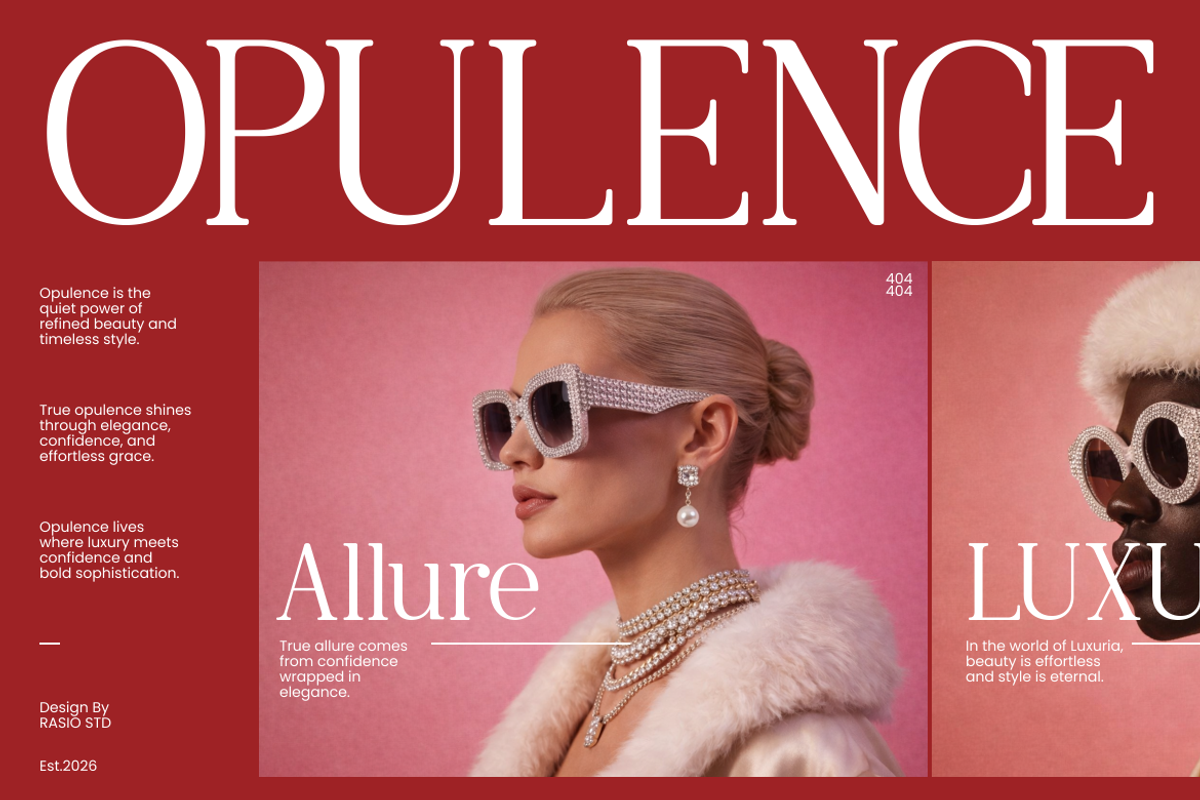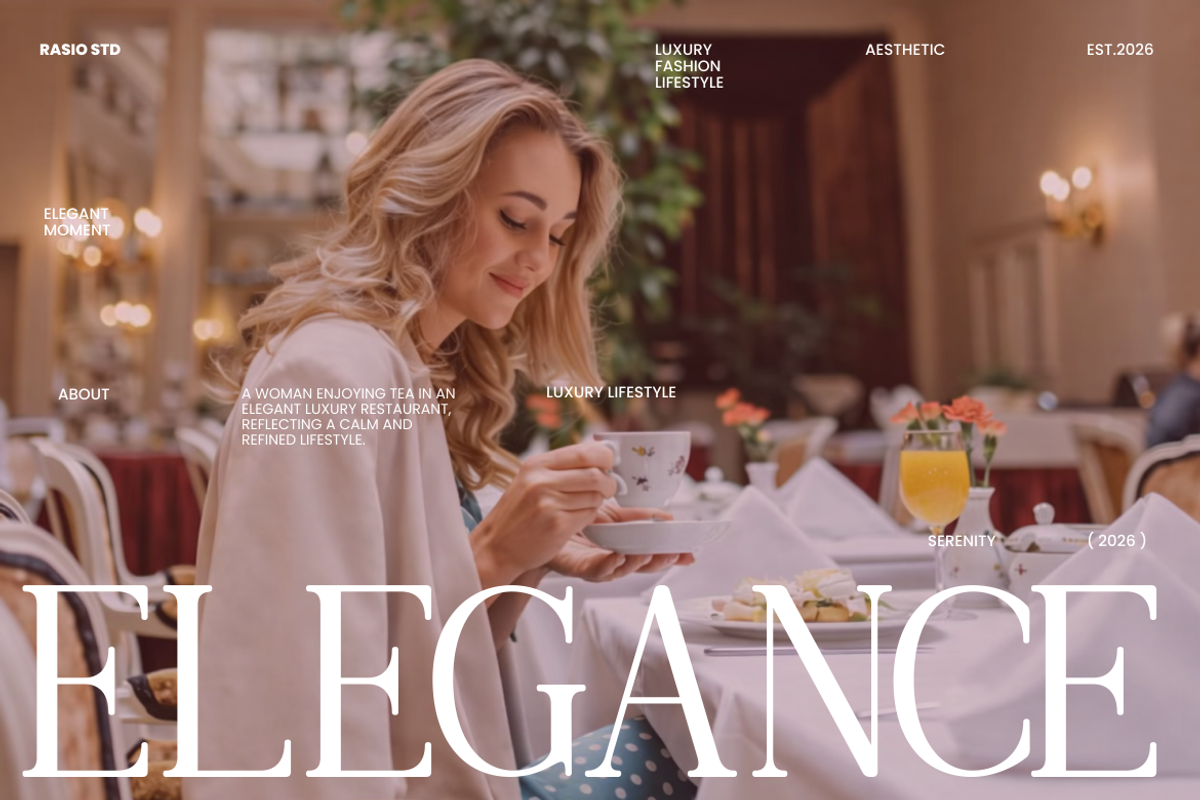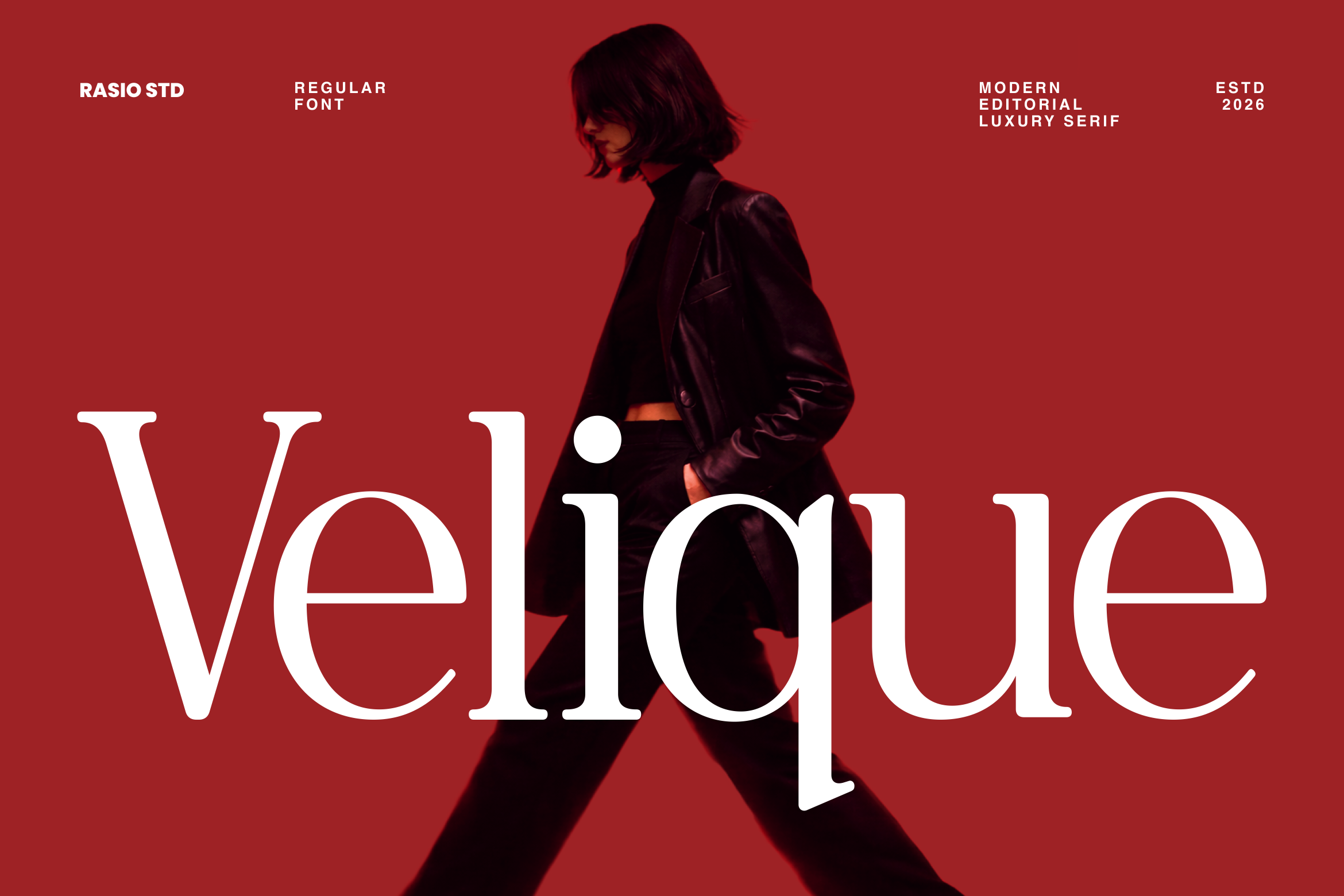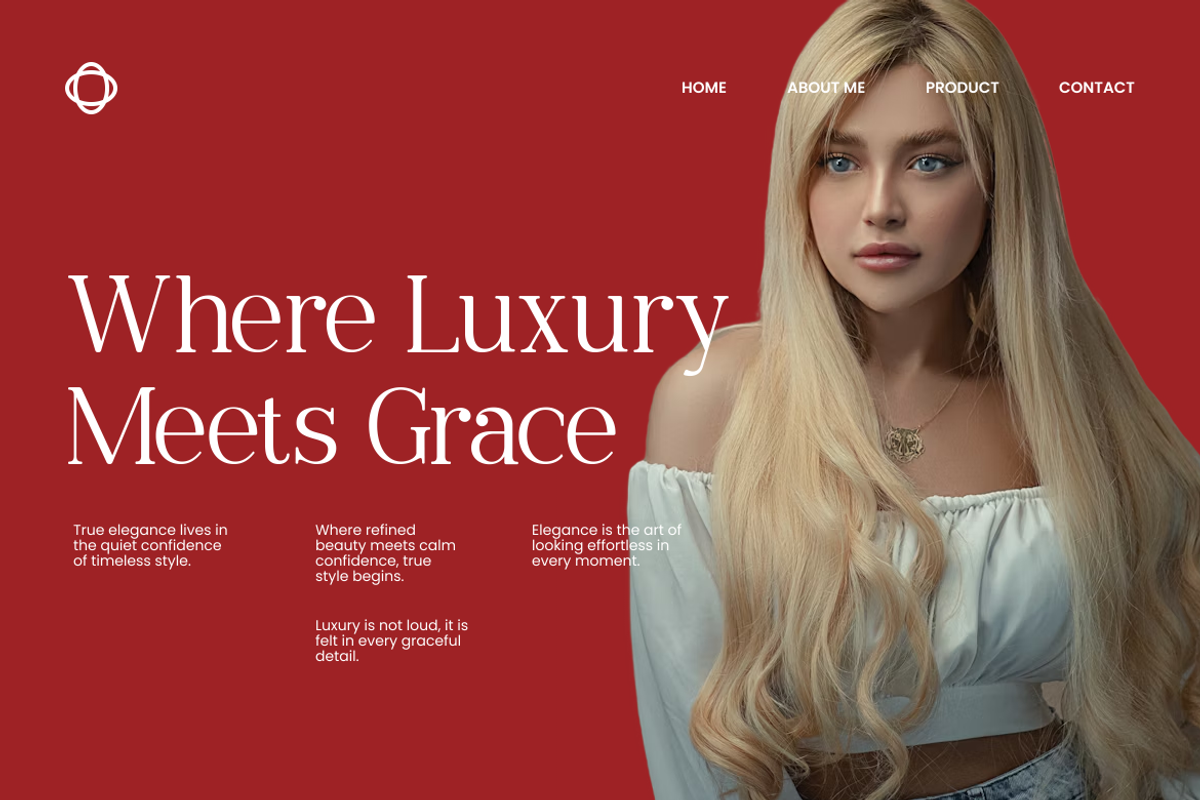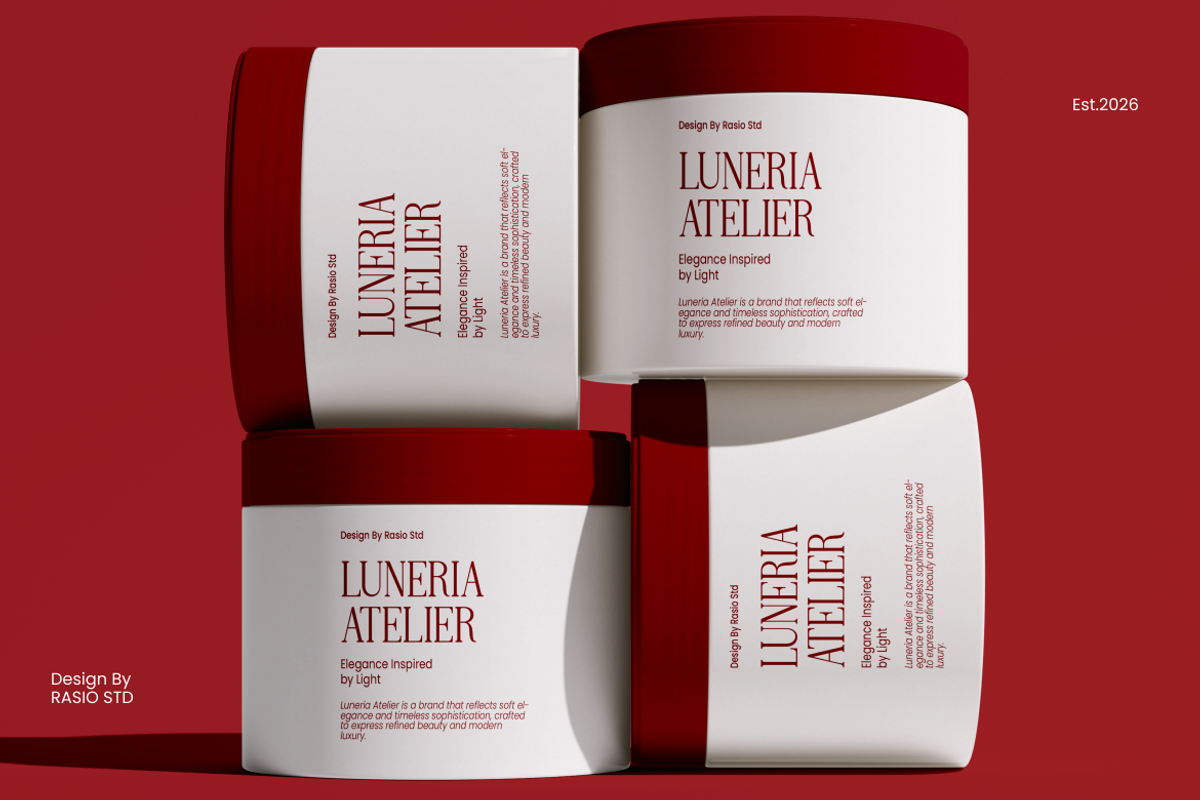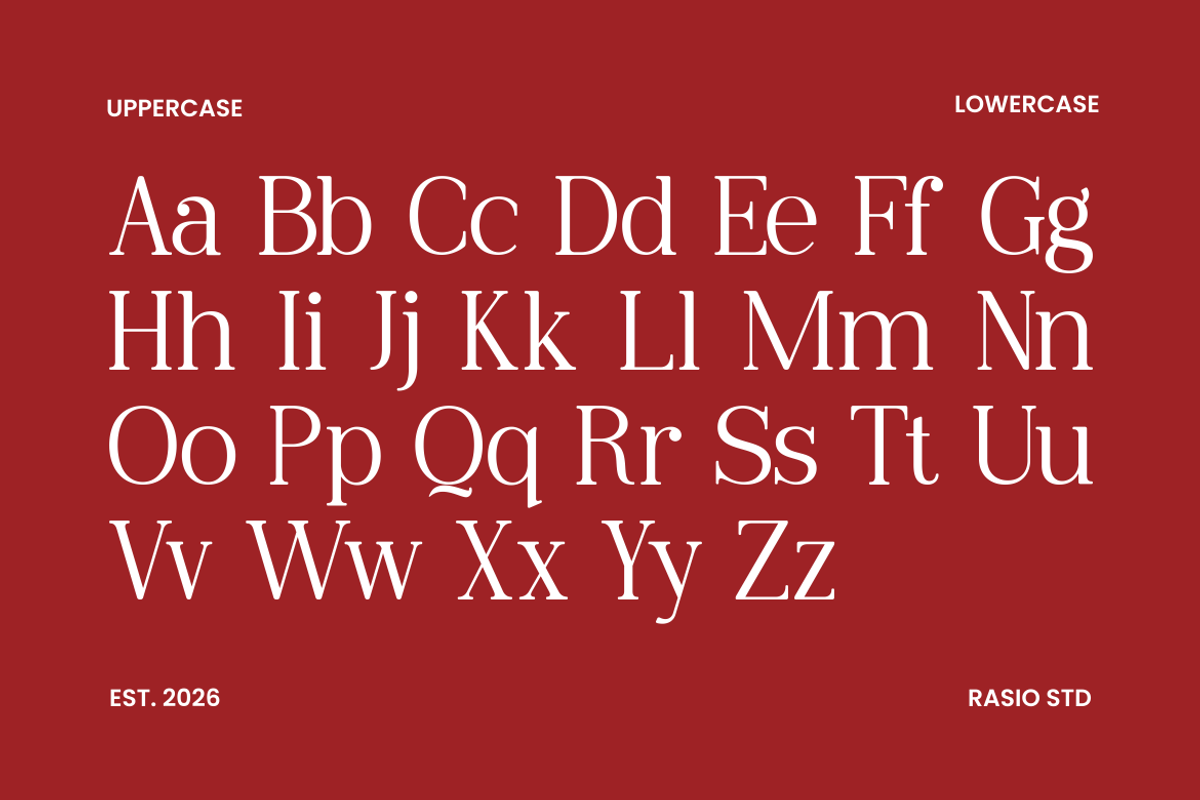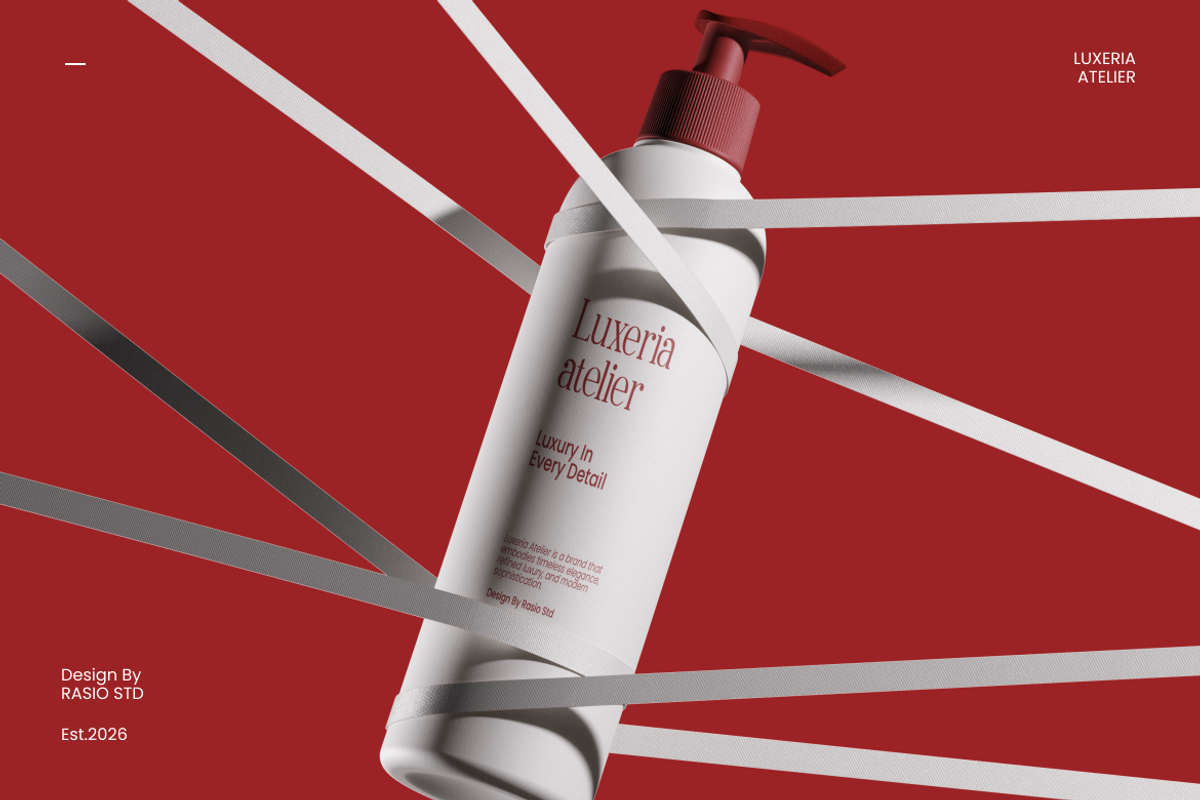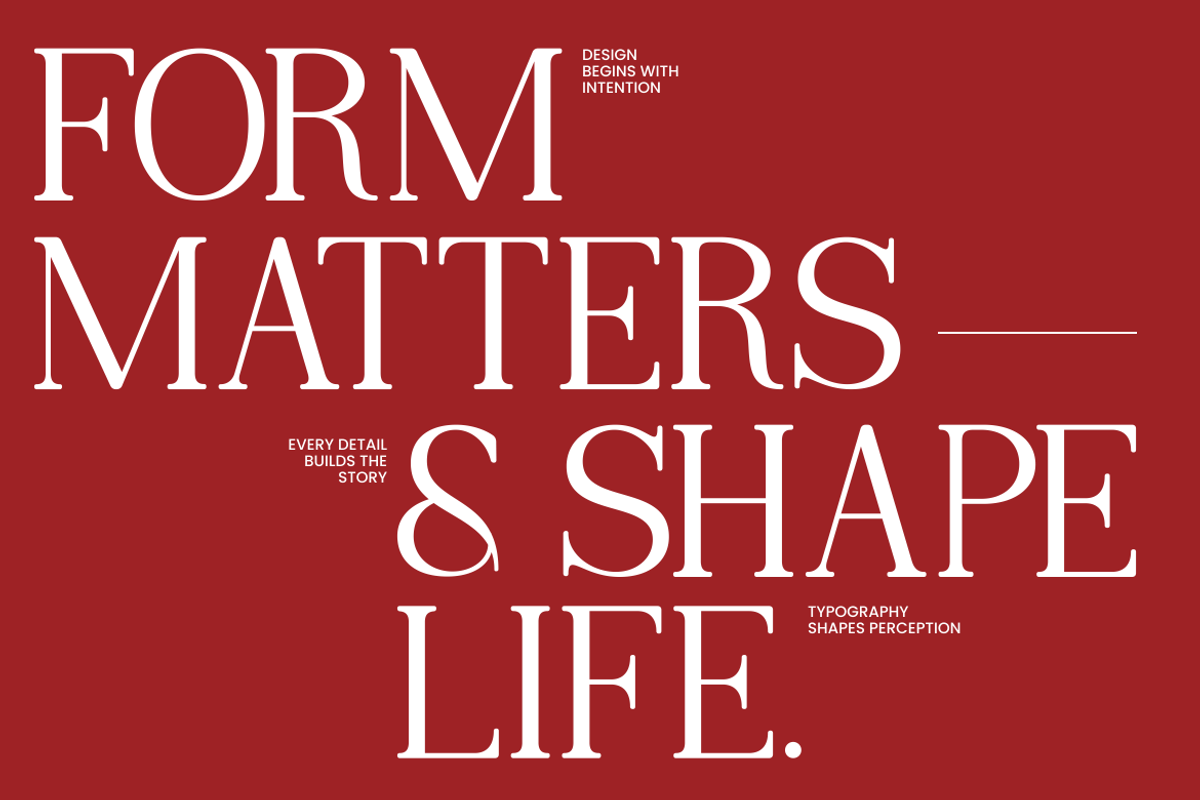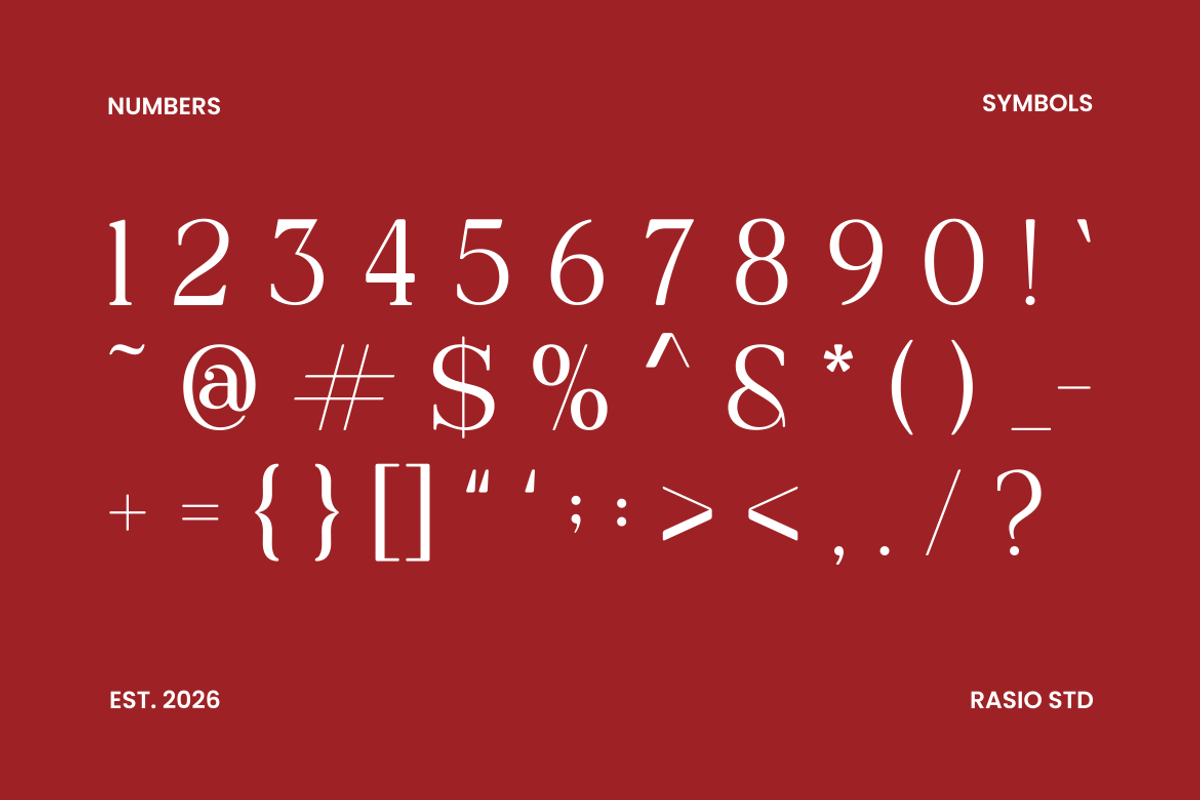
Velique Modern Editorial Serif Font
Velique showcases a modern editorial serif with refined proportions, high-contrast strokes, and elegant letterforms. It features clean serif structures combined with subtle contemporary details, creating a sophisticated and fashion-forward aesthetic. The font includes uppercase, lowercase, numerals, punctuation. Fully editable and compatible across major design software, making it ideal for professional branding and editorial layouts.
This font is highly relevant for luxury branding, fashion editorials, and premium visual identities that require a refined and sophisticated tone. It works perfectly for magazine layouts, logo design, product packaging, and high-end marketing materials where elegance and clarity are essential.
- Modern editorial serif with refined and minimal letterform structure
- High contrast strokes for a sophisticated and elegant visual rhythm
- Sharp serif details combined with smooth curves for balanced aesthetics
- Clean and controlled proportions for a polished, professional look
- Designed for clarity and impact in high-end display and editorial use
- Luxury brand identity with a refined and sophisticated visual tone
- Editorial layouts such as fashion magazines, lookbooks, and publications
- Logo design with elegant, high-contrast serif character
- Premium product packaging with a clean and upscale aesthetic
- Social media visuals for fashion, beauty, and lifestyle branding
Velique brings timeless sophistication through a modern serif